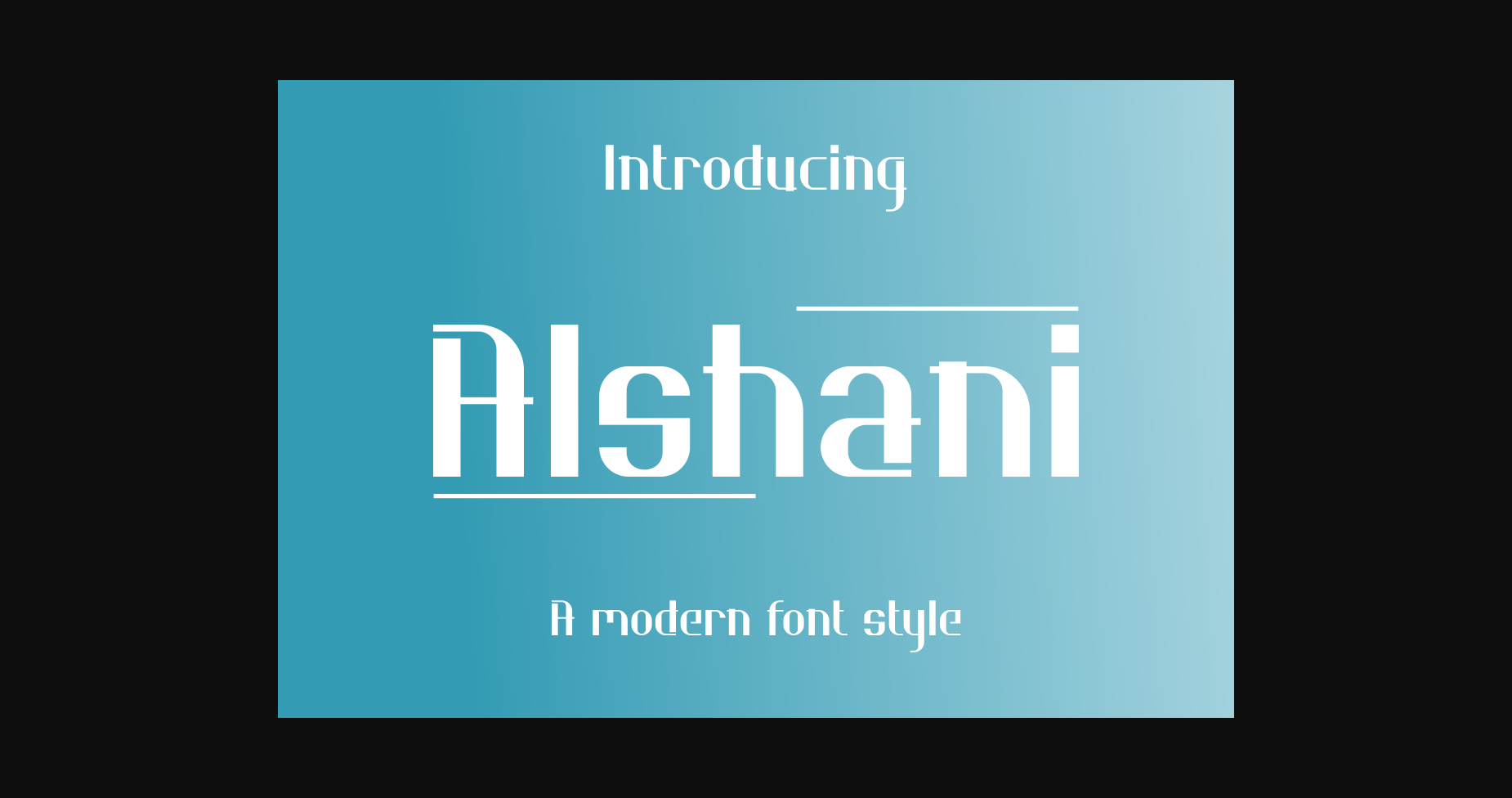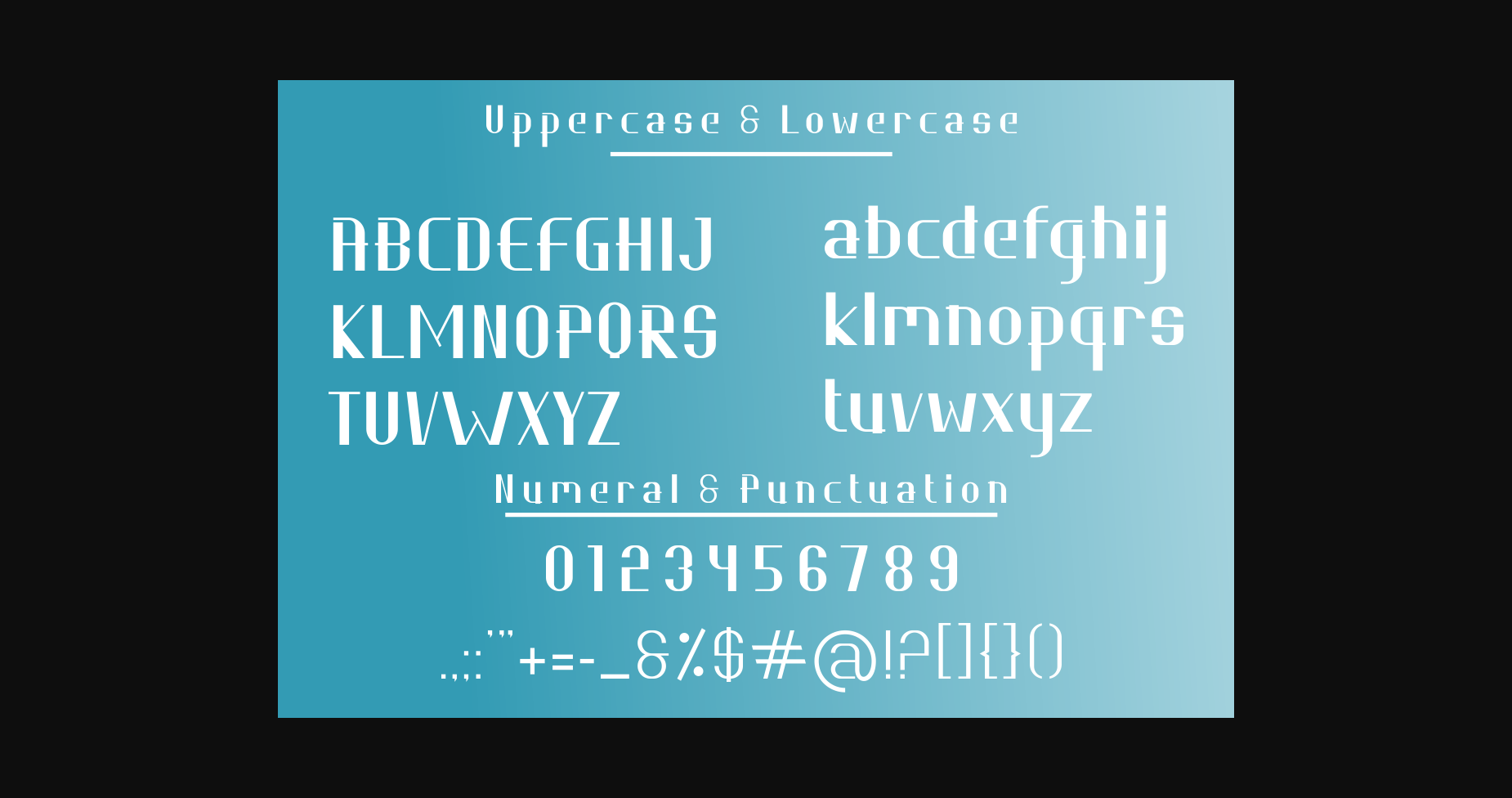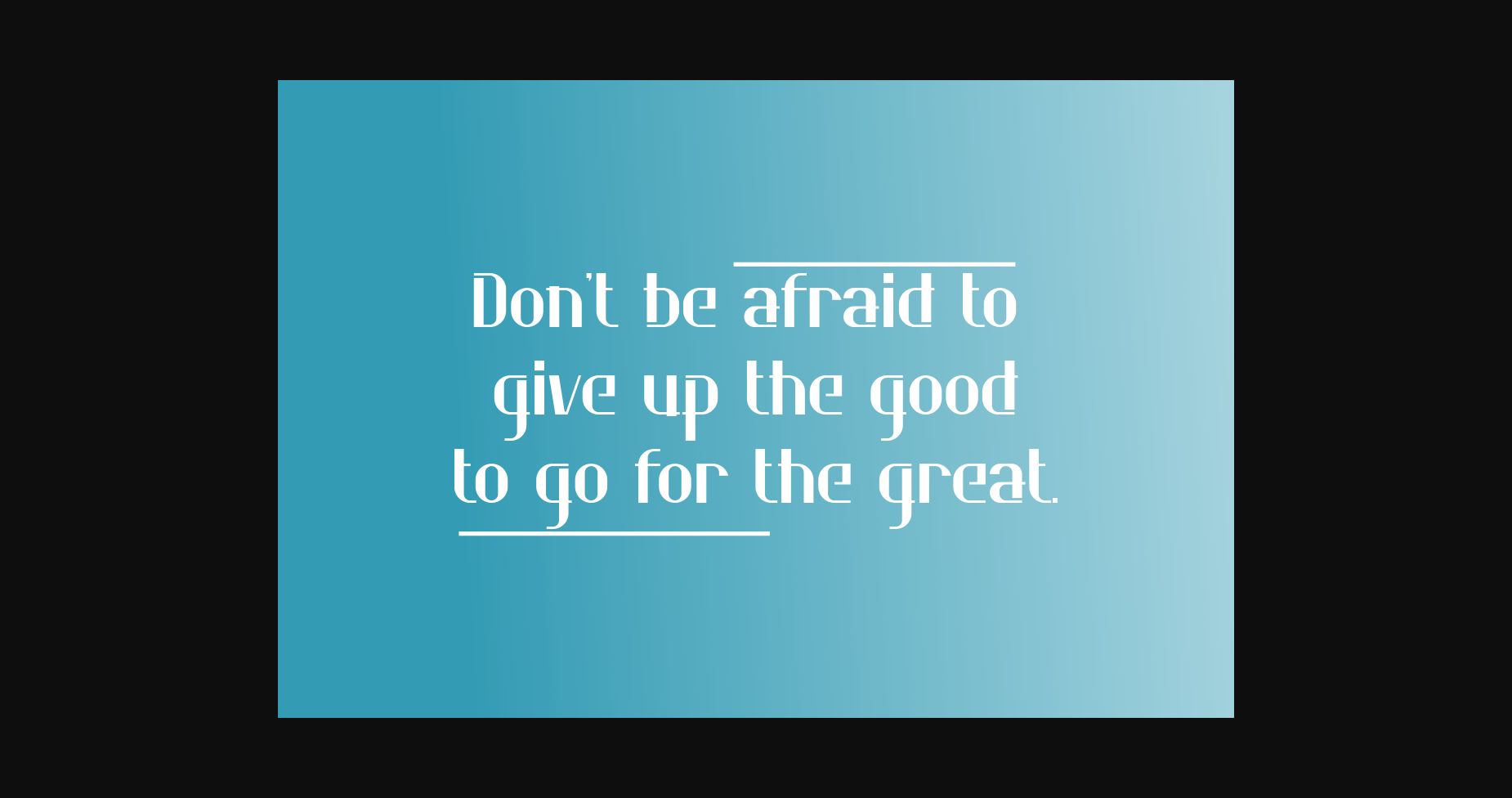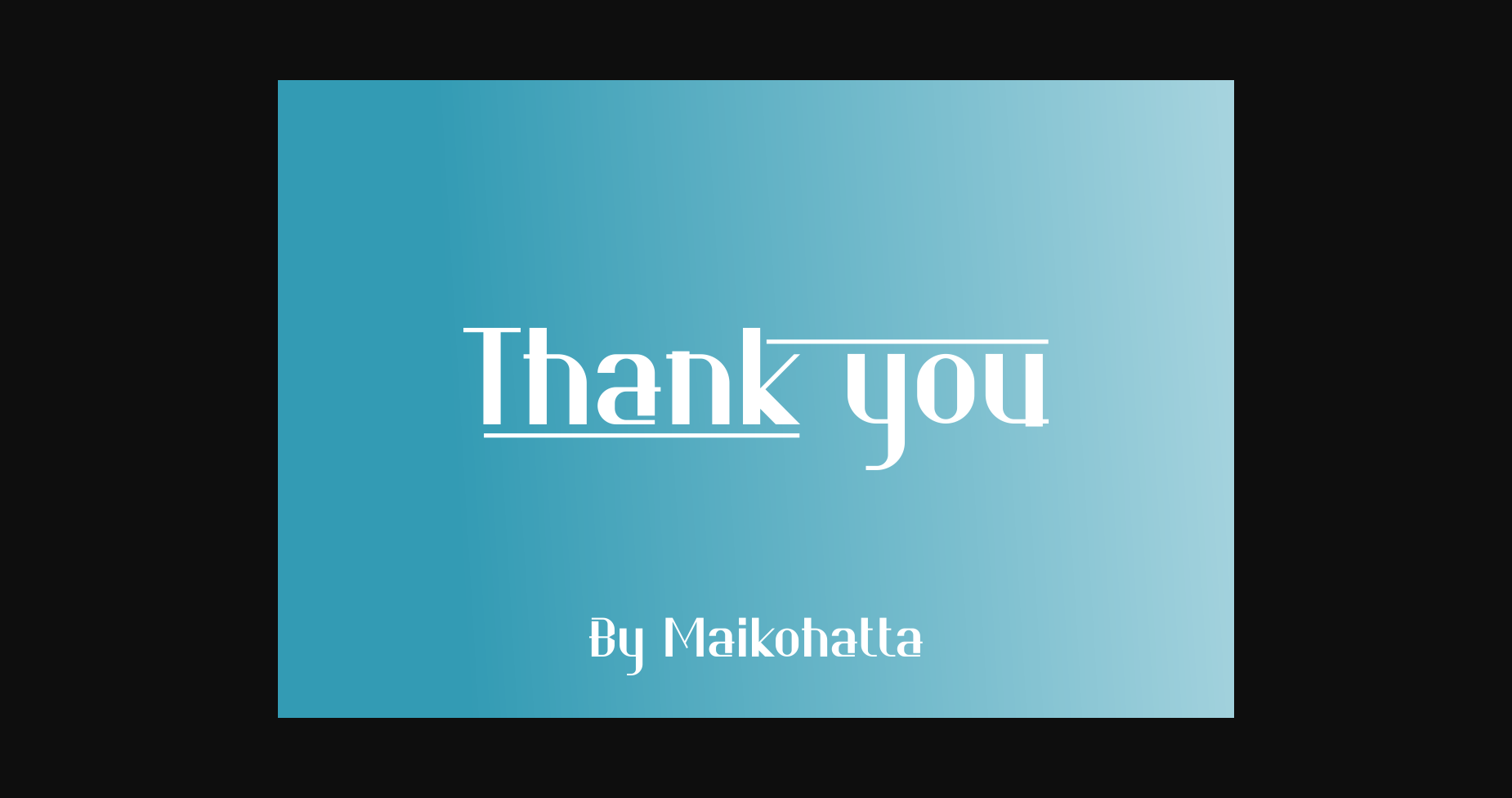
About Alshani Font
Alshani Font is a modern Sans Serif font. This lovely font is suitable for any branding project like logo, t-shirt printing, esports, and many more. Outstanding in a wide range of contexts.